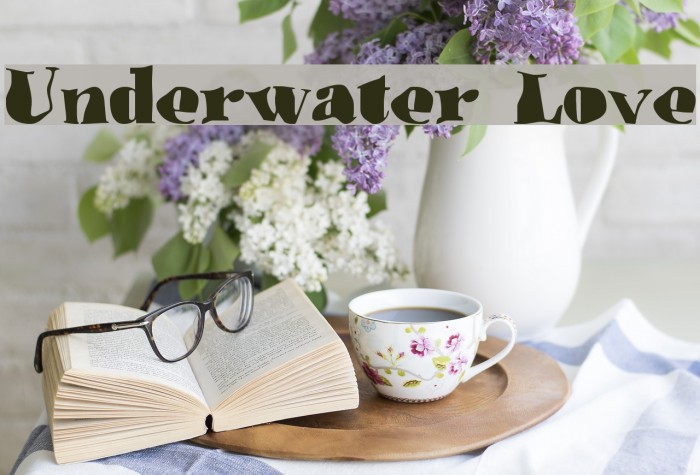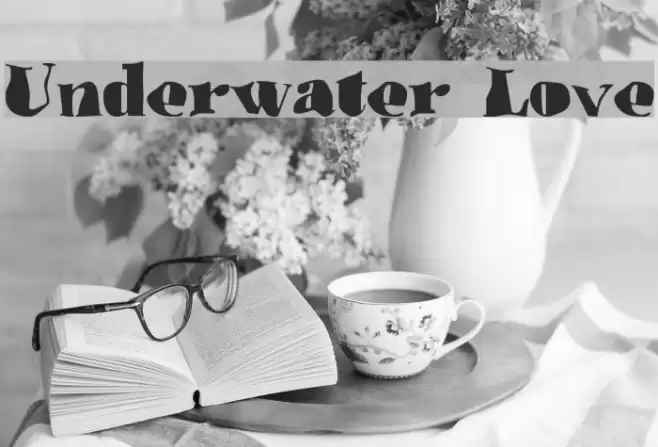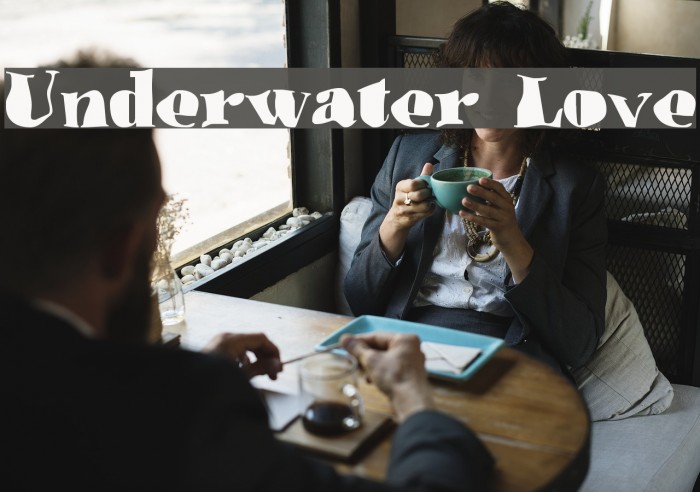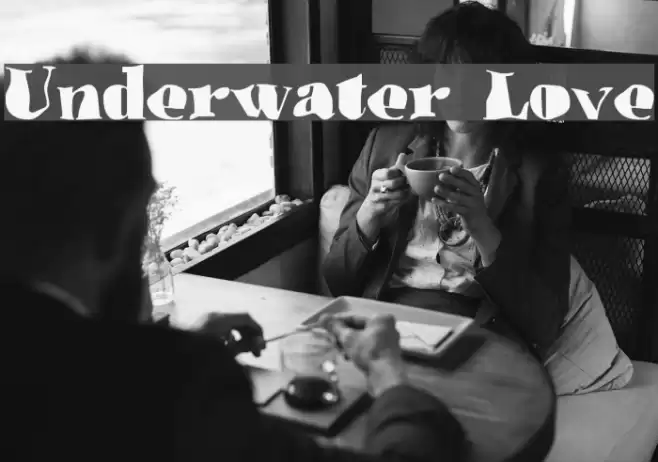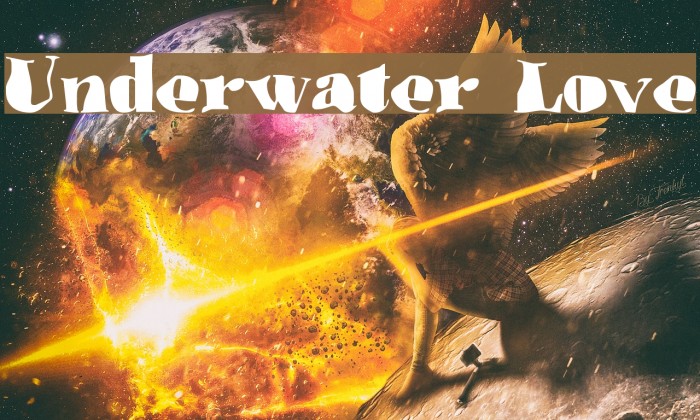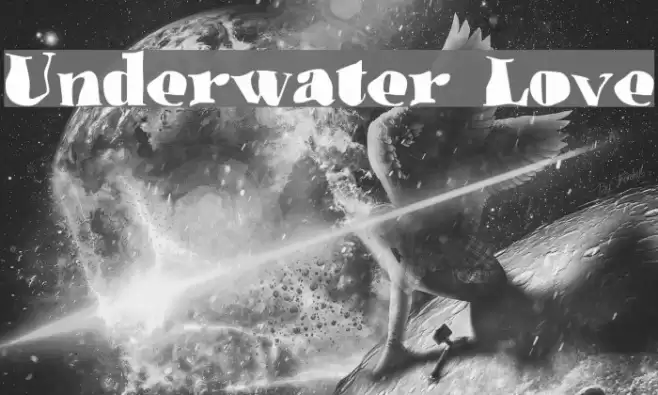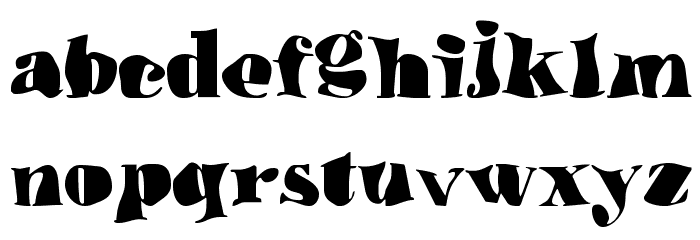
Underwater Love Font
Underwater Love Description
This font features a bold and playful design with a unique, wavy style that gives each letter a sense of movement and fluidity. The characters have a strong presence with thick strokes and a slightly irregular shape, reminiscent of underwater currents or waves. This design choice adds a whimsical and dynamic feel, making it stand out in any context. The uppercase and lowercase letters maintain a consistent style, with the uppercase being more pronounced. The font's overall appearance is both artistic and eye-catching, suitable for creative and informal projects.
| Proposed Projects | Ideal for creative projects such as posters, album covers, children's books, or any design requiring a whimsical and artistic touch. |